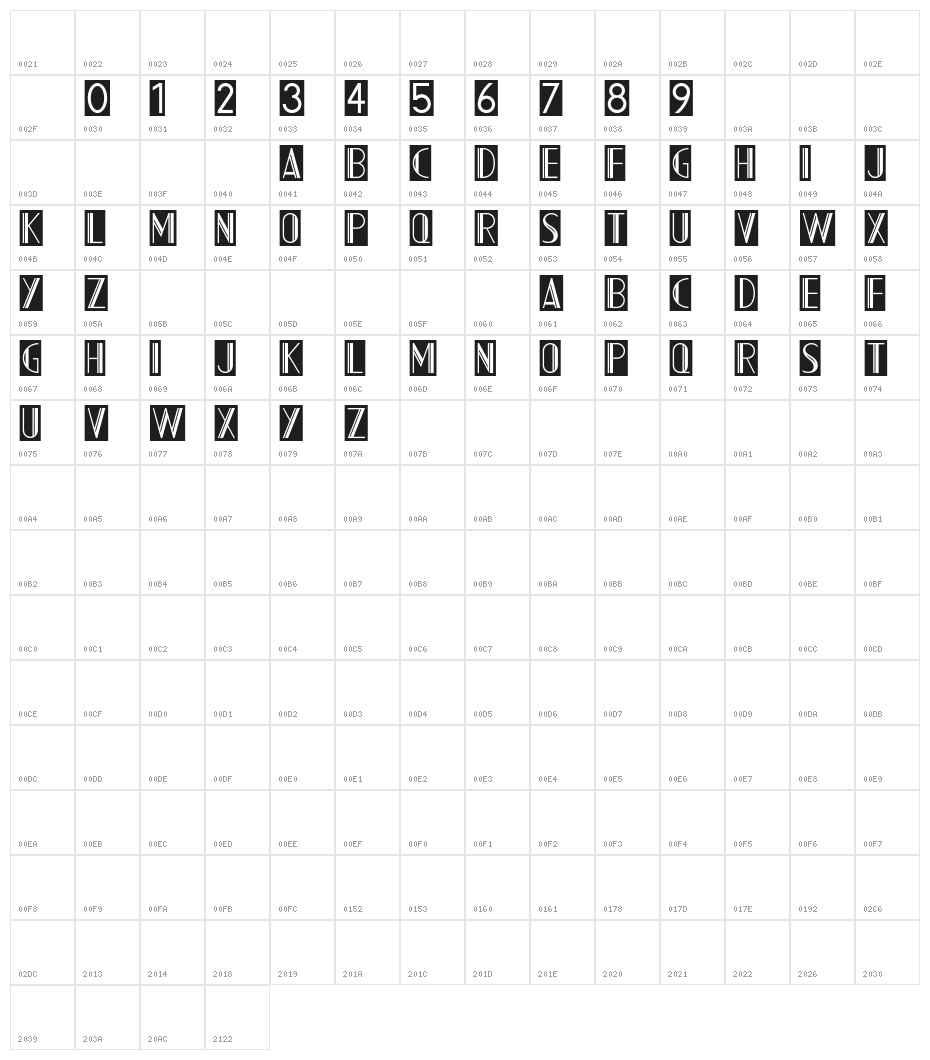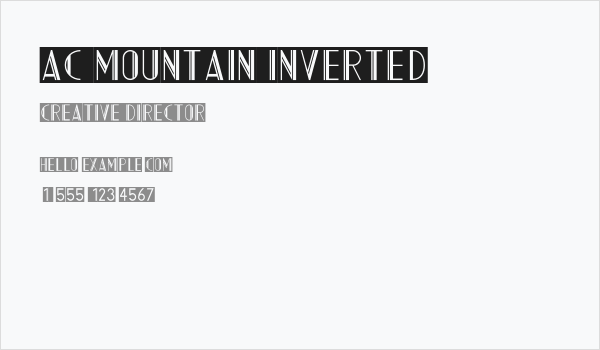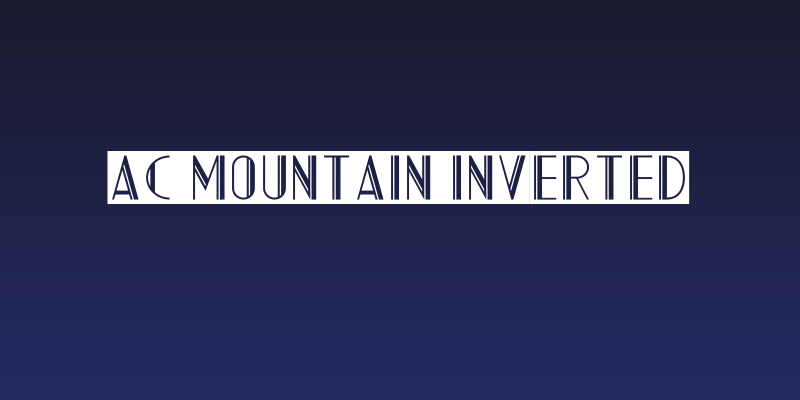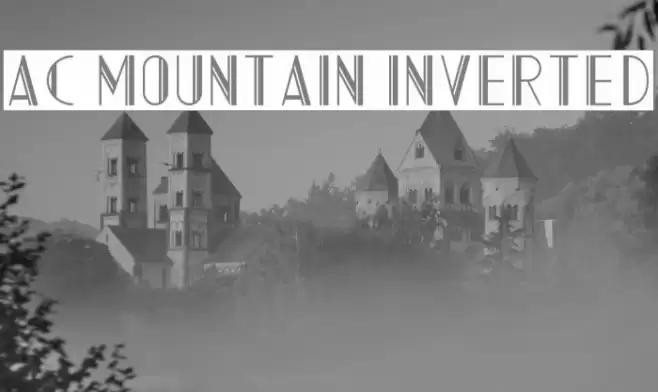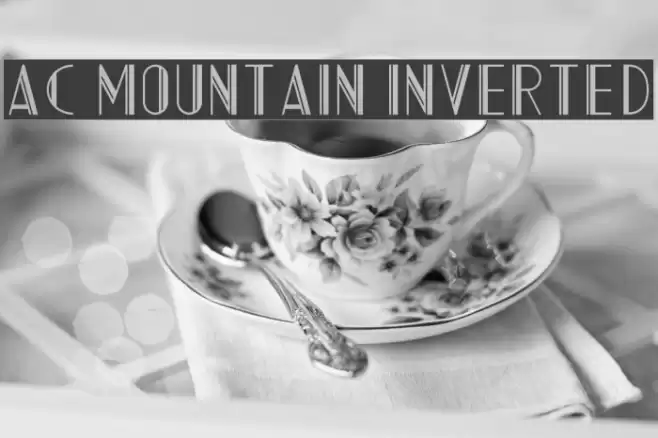
AC Mountain Inverted Font
AC Mountain Inverted Description
This font features a unique and modern design with a geometric and angular style. The characters are tall and narrow, giving an elegant and sophisticated appearance. The uppercase letters have a distinct art deco influence, with sharp edges and clean lines. The numerals are consistent with the overall style, maintaining the same geometric precision. This font is ideal for creating a bold statement in design projects, offering a striking visual impact. The consistent stroke width across characters provides a uniform look, enhancing its modern appeal.
| Proposed Projects | Ideal for branding, posters, headlines, and any design project requiring a bold and modern aesthetic. |